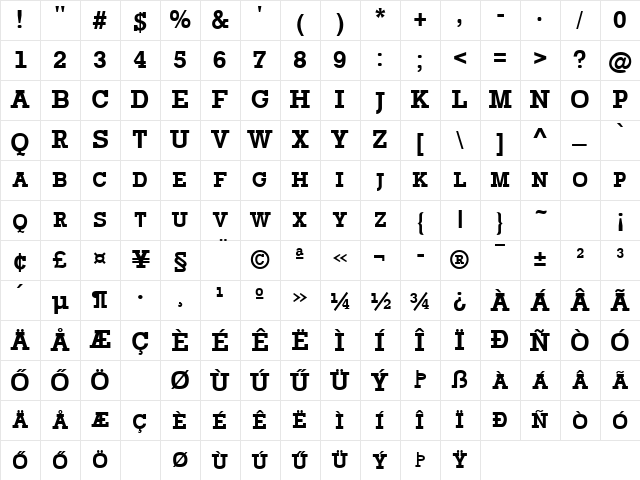
Hu_RockfordExpert Bold Regular Free Font
Hu_RockfordExpert Bold Regular
Complete Hu_RockfordExpert Bold Regular glyph index. Displaying only characters natively supported by Hu_RockfordExpert Bold Regular font.
Design Context for Hu_RockfordExpert Bold
Hu_RockfordExpert Bold is a composed and adaptable typeface that performs quietly and consistently across a wide range of design contexts. Its bold stroke weight gives it real presence on the page.